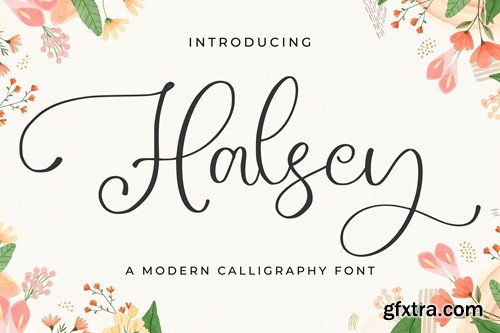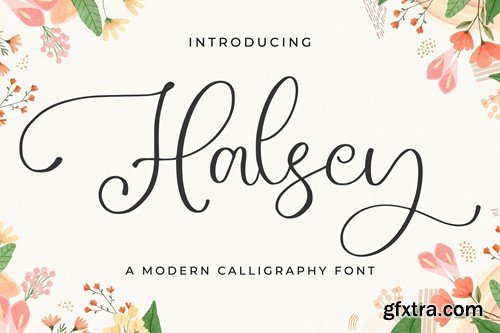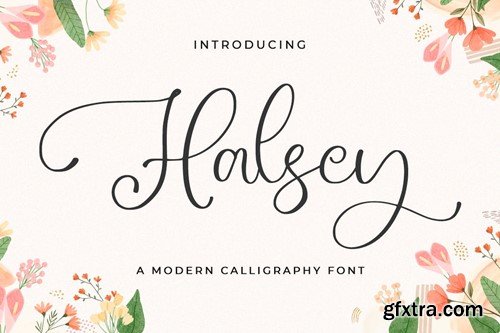
哈斯利 - 婚礼字体 EJWA4TG
Halsey - Wedding Font
Halsey is a beautiful script font. Its refined style will give an elegant and modern look to any of your creative projects such as logos, branding, invitations, stationery, wedding designs, social media posts, and many more! What's Included: PUA encoded = Accessible in the Adobe Illustrator, Adobe Photoshop, Adobe InDesign, even work on Microsoft Word. PUA Encoded Characters - Fully accessible without additional design software. Each Font Has: Thank You